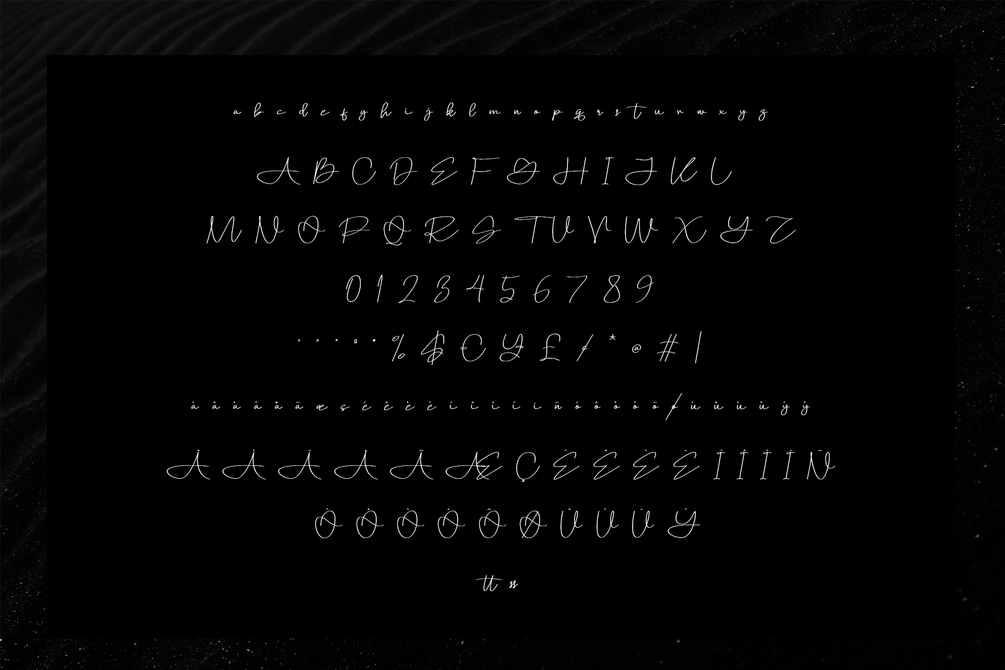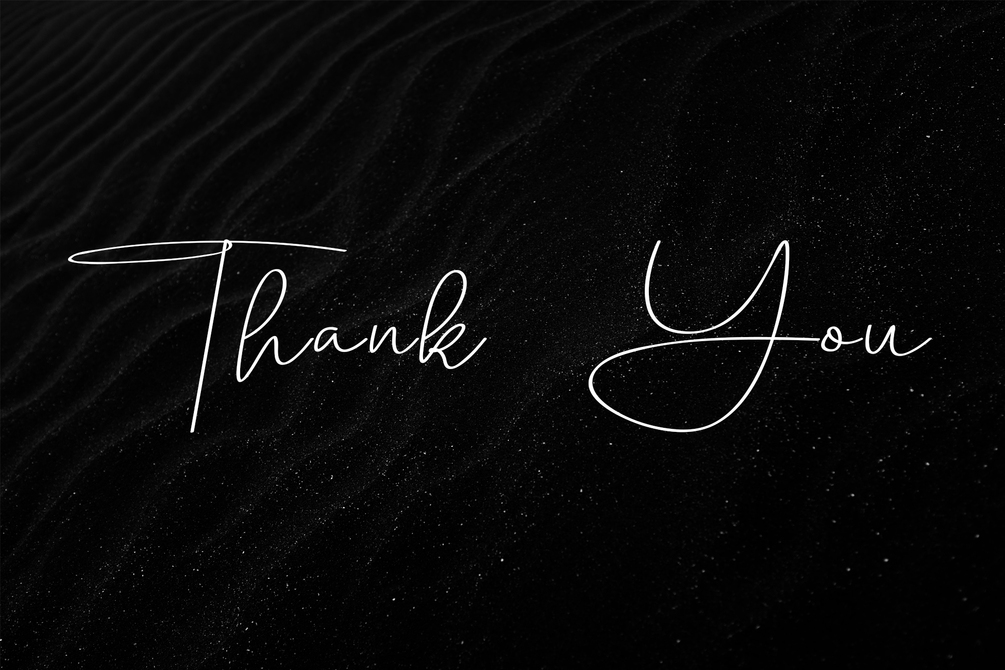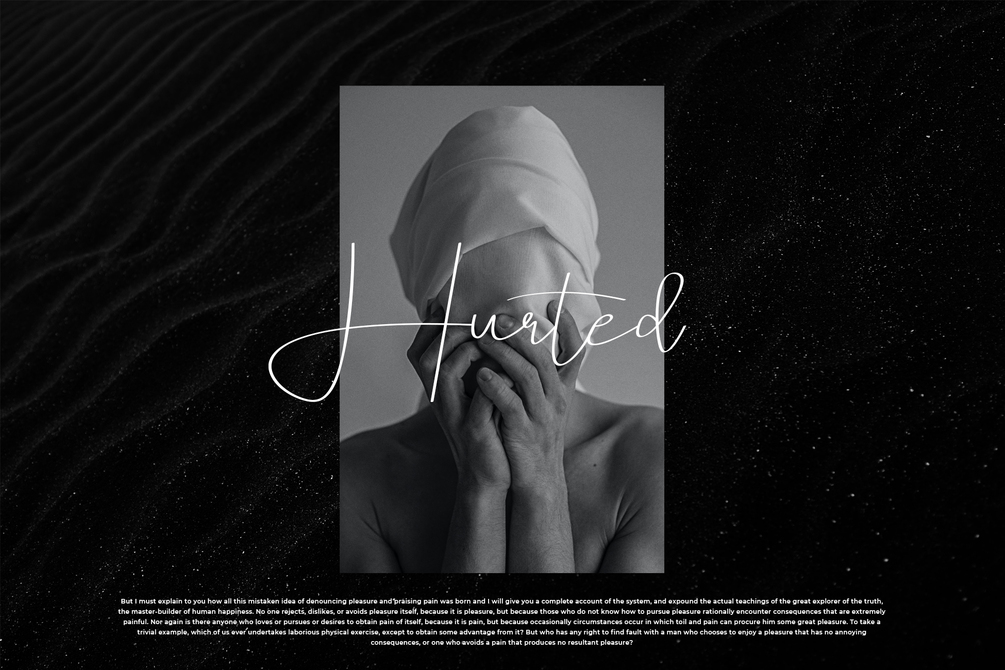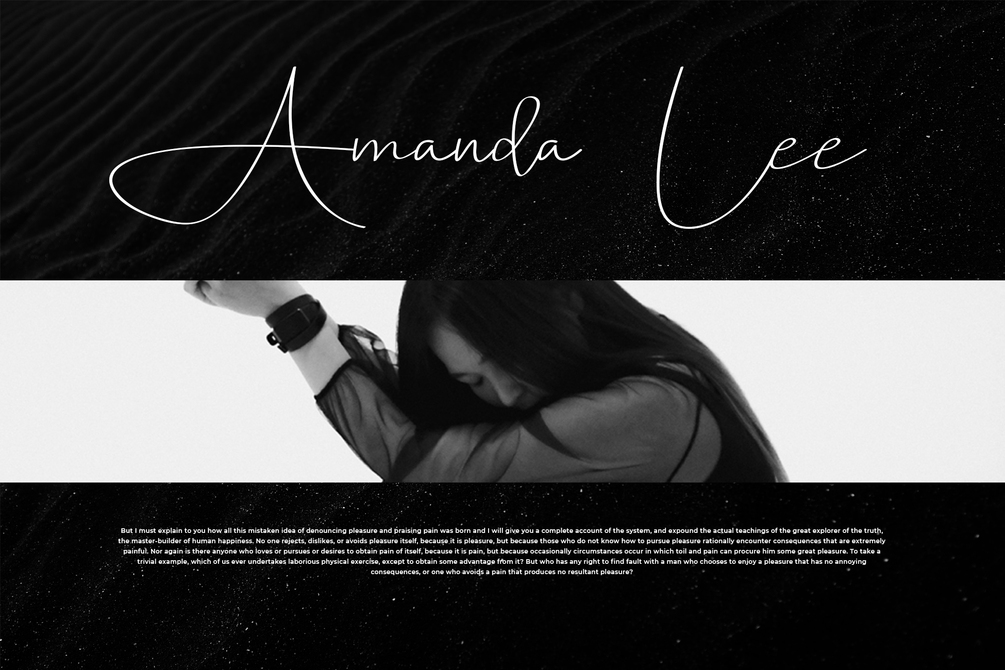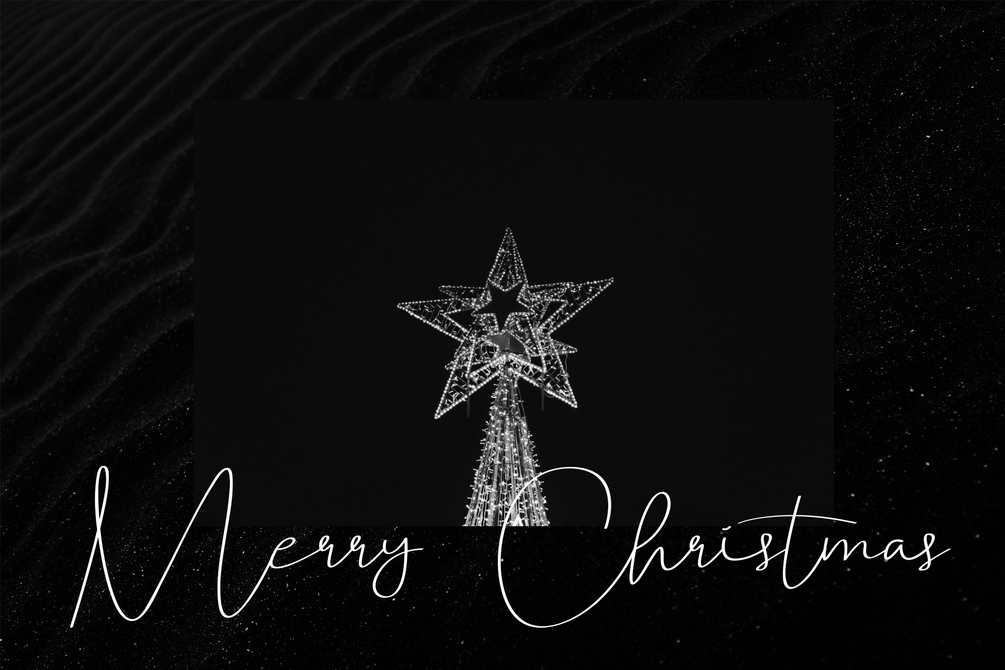
Konzerban Font
Konzerban is a script font with stylish signature line. suitable for wedding, photography, label, soscial media , branding, logotype so on. contains standard English letters, numbers, punctuation, and several accents that support multilingualism.